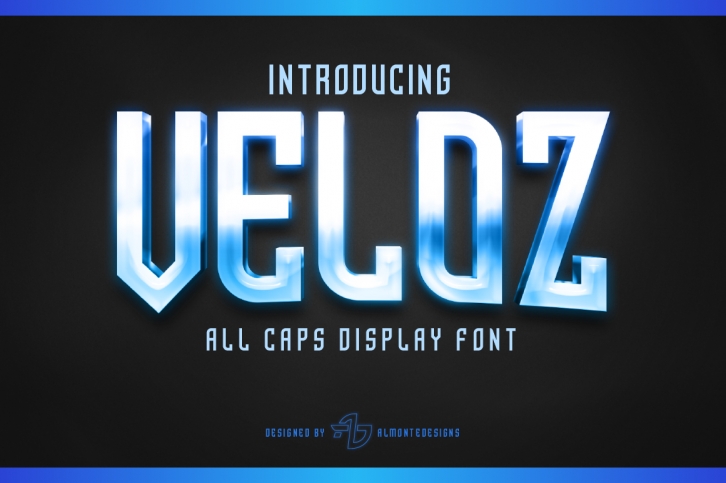
Veloz Display is a beautiful font that was designed by AlmonteDesigns. It's a great choice for designers and creatives who need such a font. It was released on December 28, 2017 and the file size is 9.64 MB. Veloz Display may give a more youthful, expressive and casual look to your project. It is a very beautiful, refined, elegant, and high-quality font.